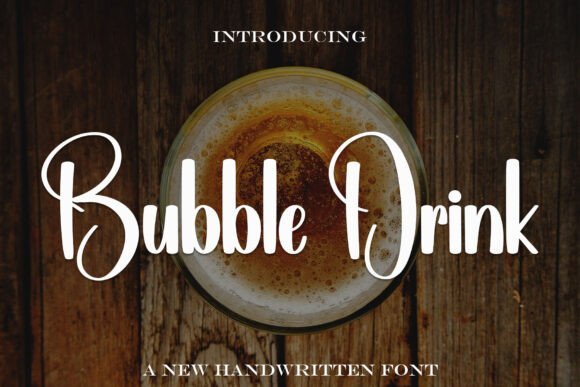
Discover the Perfect Blend: Bubble Drink Font
Have you ever found yourself sipping on a refreshing drink, watching the bubbles rise to the surface, and suddenly feeling inspired to create something magical? That’s exactly what happened to us when we discovered the enchanting Bubble Drink Font. This thin lettered and simple script font is the perfect blend of elegance and whimsy, making it a must-have for any designer looking to add a touch of sophistication to their projects.
Whether you’re crafting a romantic wedding invitation, designing beautiful stationery art, or creating eye-catching social media posts, Bubble Drink Font is the perfect companion to help you bring your vision to life. Its versatility and charm make it a valuable asset for designers, allowing them to add a personal touch to their work and connect with their audience on a deeper level.
Bubble Drink Font Key Features
- Font Family: Bubble Drink Font is a unique, cursive script font designed for creative and fun applications.
- Character Count: The font includes a wide range of characters, including uppercase and lowercase letters, numbers, and punctuation marks.
- Unique Characteristics: The font features a playful, bubbly design with irregular letterforms and varying line widths, creating a dynamic and eye-catching effect.
Bubble Drink Font Review
Overall, I found the Bubble Drink Font to be a playful and whimsical addition to any design project. ✨ Its unique bubble-like shapes and rounded edges give it a fun and youthful feel that’s perfect for branding and marketing materials targeting a younger audience.
Here are some specific strengths of the font:
- High contrast between thick and thin strokes, making it easy to read even at smaller sizes ✨
- Unique letterforms that add a touch of personality to any text ✨
- Works well in digital applications, including mobile and web design ✨
- Limited font sizes – it’s not ideal for large or small font sizes, as the design can get lost or become too busy ⚠️
- Not suitable for formal or professional applications, as it may come across as too casual or playful ⚠️
- May not be easily legible in certain languages or scripts, due to its unique letterforms ⚠️
Overall, I’d say the Bubble Drink Font is a great choice for designers looking to add a bit of whimsy and fun to their projects. Just be mindful of its limitations and use it in contexts where its playful personality will shine through.
The Bubble Drink Font is ideal for creating playful, whimsical designs, such as:
- Restaurant menus and food labels
- Food blogs and recipe websites
Alternatives to Bubble Drink Font
Bubble Drink Font is a fun, cursive font used for headings and titles. However, there are other alternatives that can provide a similar look and feel. Here are a few options:
Great Vibes is a beautiful, handwritten font that is perfect for titles and headings. It has a more elegant and sophisticated look compared to Bubble Drink Font. Great Vibes is ideal for designs that require a touch of elegance and sophistication. It is available for free on Google Fonts.
Lobster is a popular, cursive font that is often used for headings and titles. It has a more casual and playful look compared to Bubble Drink Font. Lobster is ideal for designs that require a fun and playful tone. It is available for free on Google Fonts.
Carolyna Pro is a modern, handwritten font that is perfect for titles and headings. It has a more refined and sophisticated look compared to Bubble Drink Font. Carolyna Pro is ideal for designs that require a touch of luxury and sophistication. It is available for purchase on Creative Market.
Pacifico is a beautiful, cursive font that is often used for headings and titles. It has a more elegant and sophisticated look compared to Bubble Drink Font. Pacifico is ideal for designs that require a touch of elegance and sophistication. It is available for free on Google Fonts.